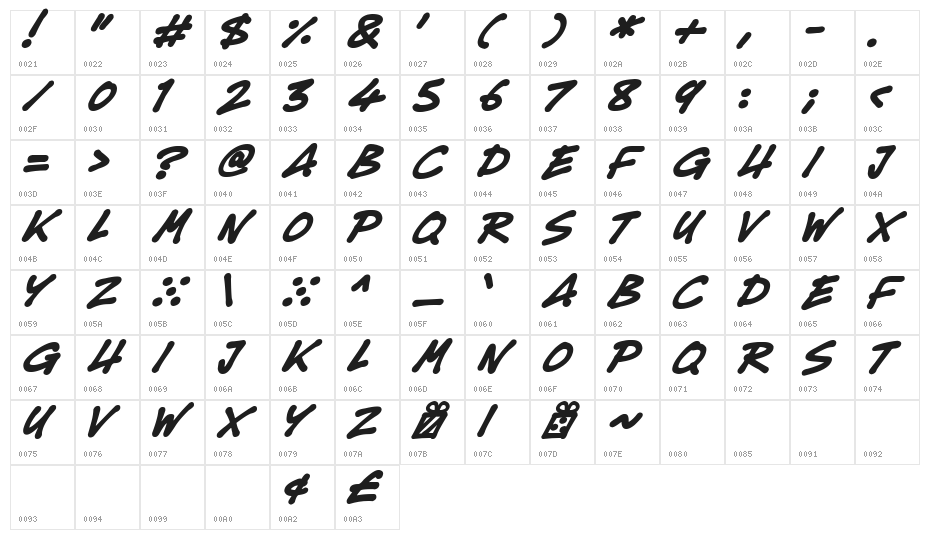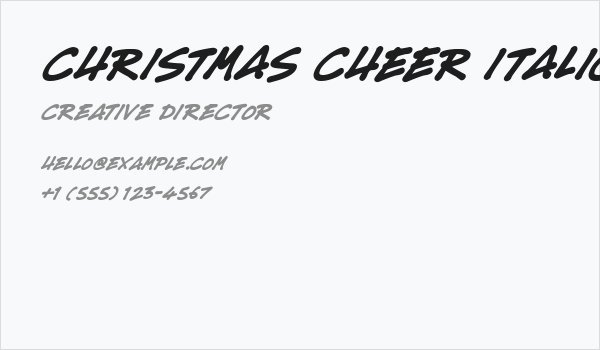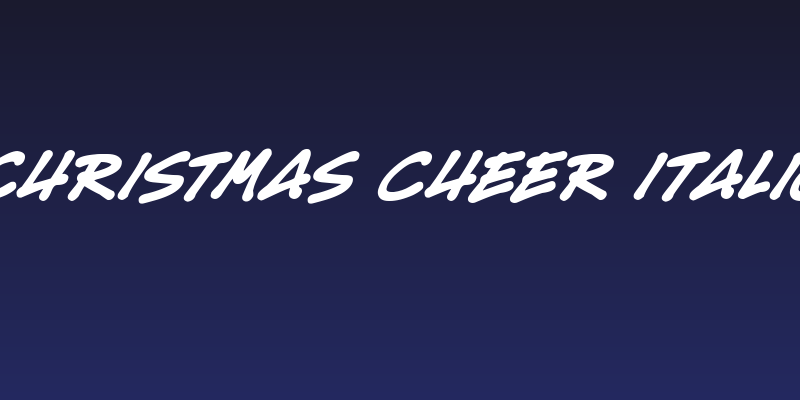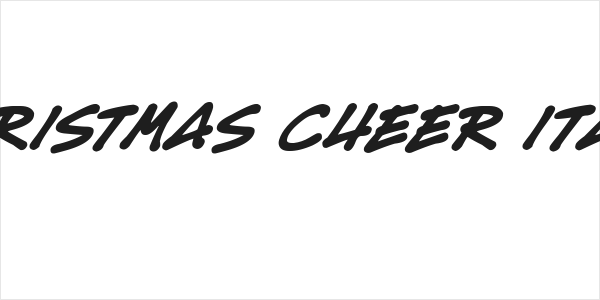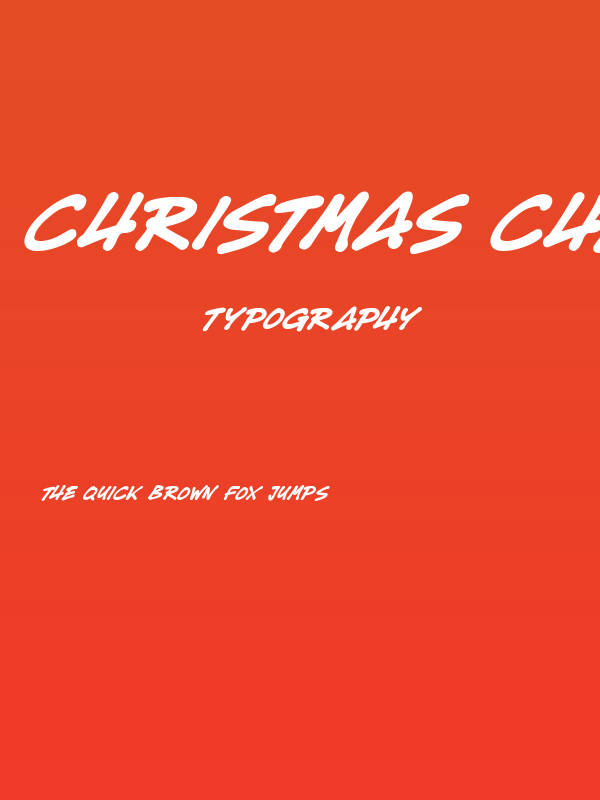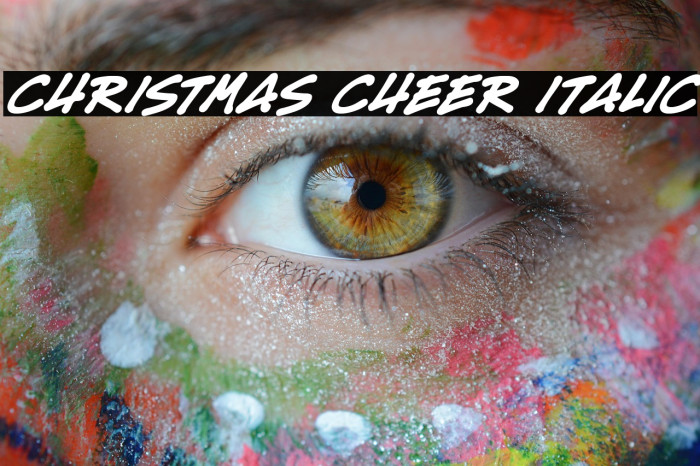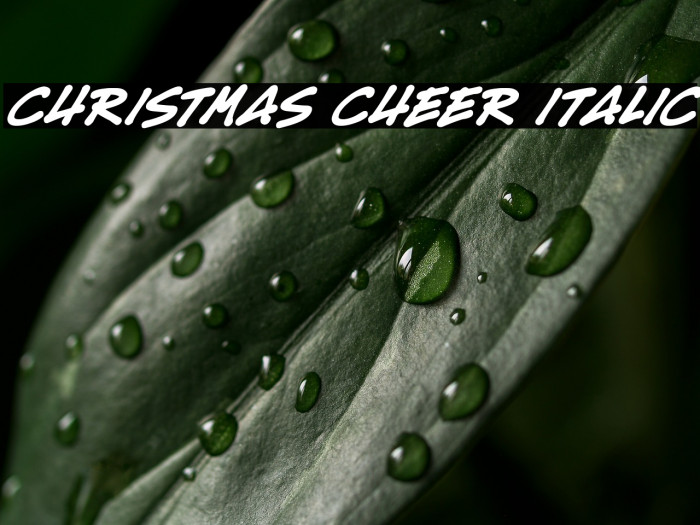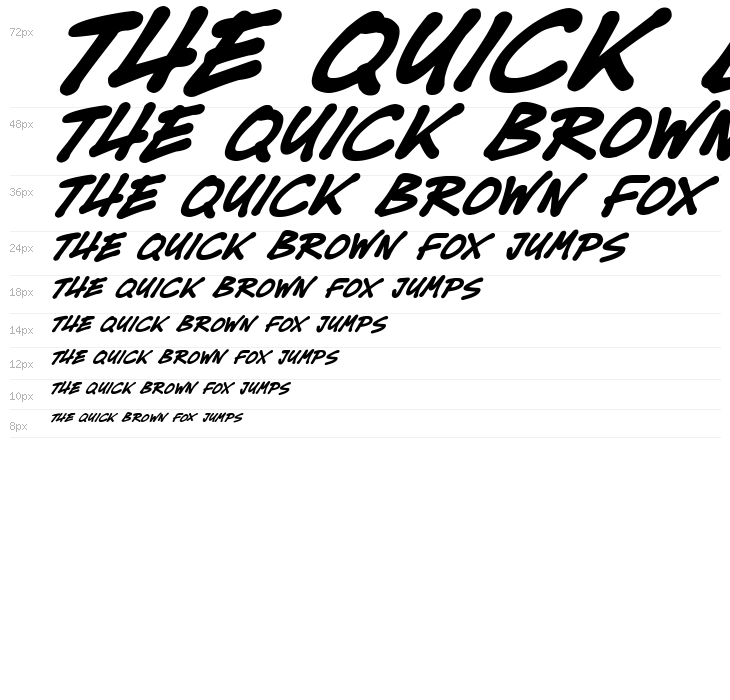
Christmas Cheer Italic Font
Christmas Cheer Italic Description
This font exudes a festive and playful spirit, characterized by its bold, italicized script style. The letters are fluid and dynamic, with a handwritten feel that adds a personal touch. The strokes are thick and consistent, providing a strong visual impact. The slanted orientation enhances the energetic and lively appearance, making it ideal for capturing attention. The numbers and special characters maintain the same bold and cursive style, ensuring a cohesive look across all text elements. This font is perfect for creating a cheerful and inviting atmosphere, suitable for holiday-themed designs and projects.
| Use Case | Headlines, Logos, Decorative text |
| Proposed Projects | Ideal for holiday cards, festive invitations, seasonal branding, and decorative posters. |